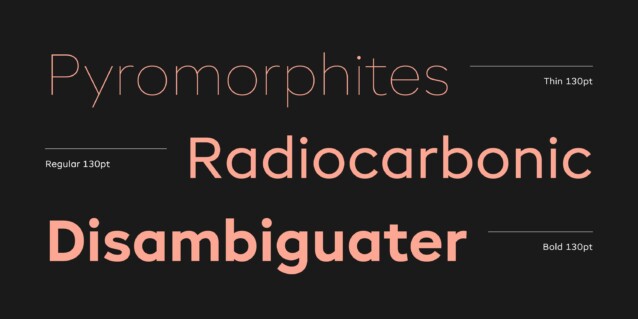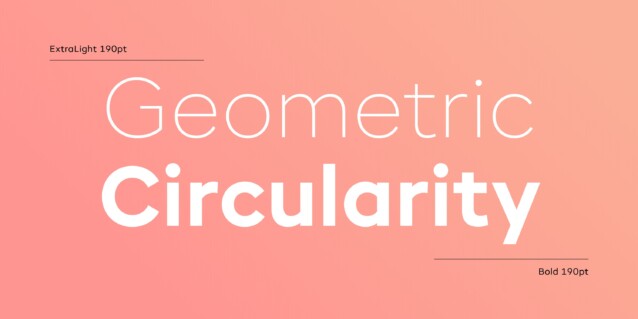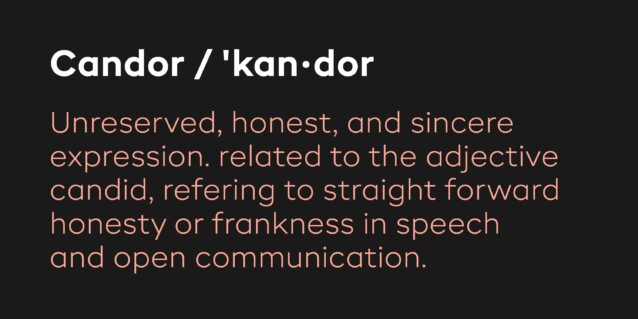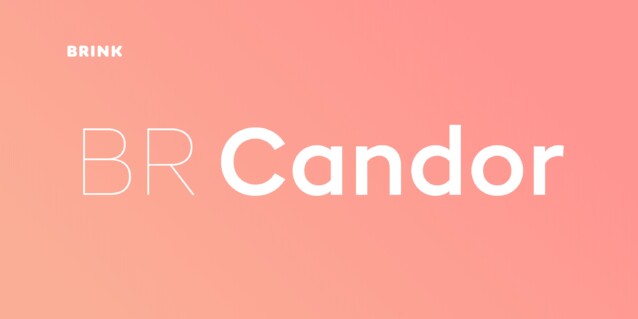
BR Candor Font Family
BR Candor Font is a cutting-edge variable font family that transitions seamlessly between bold and light, offering unprecedented typographic flexibility. BR Candor however, is a more modernist interpretation of these classic styles, and its distinctly geometric letterforms produce a strikingly clear and contemporary typographic aesthetic. As the name suggests BR Candor is open, honest and straight talking.